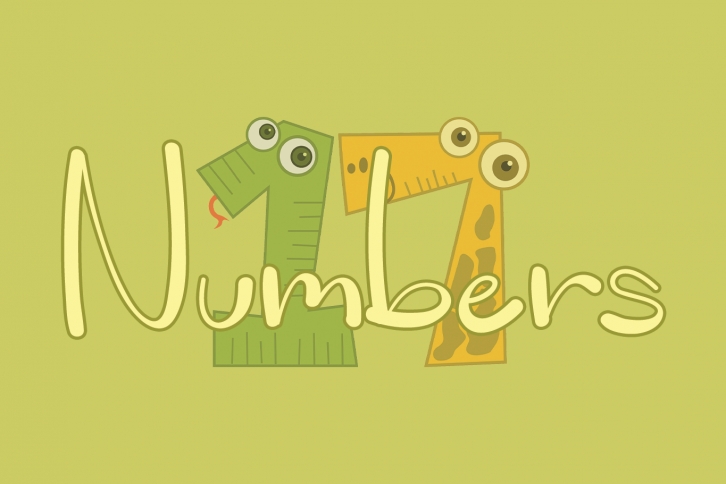
Numbers is a lovely and delicate script font that exudes friendliness and warmth. This font was particularly crafted for those who need a beautiful and refreshing look to their designs.